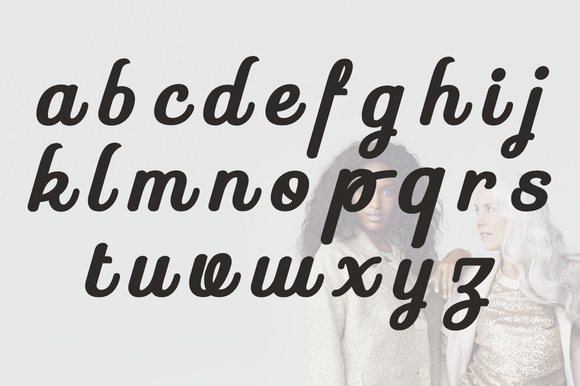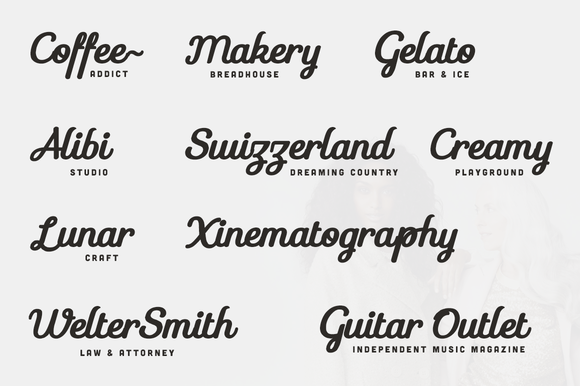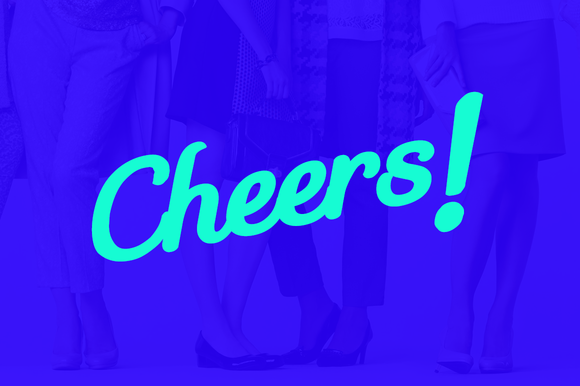
Rebli ~ Solid & Bold Typeface
Rebli is Solid & Bold Typeface calligraphy fonts. Rebli is a first release from our collection. Can be used for various purposes.such as headings, signature, logos, wedding invitation, t-shirt, letterhead, signage, lable, news, posters, badges etc.